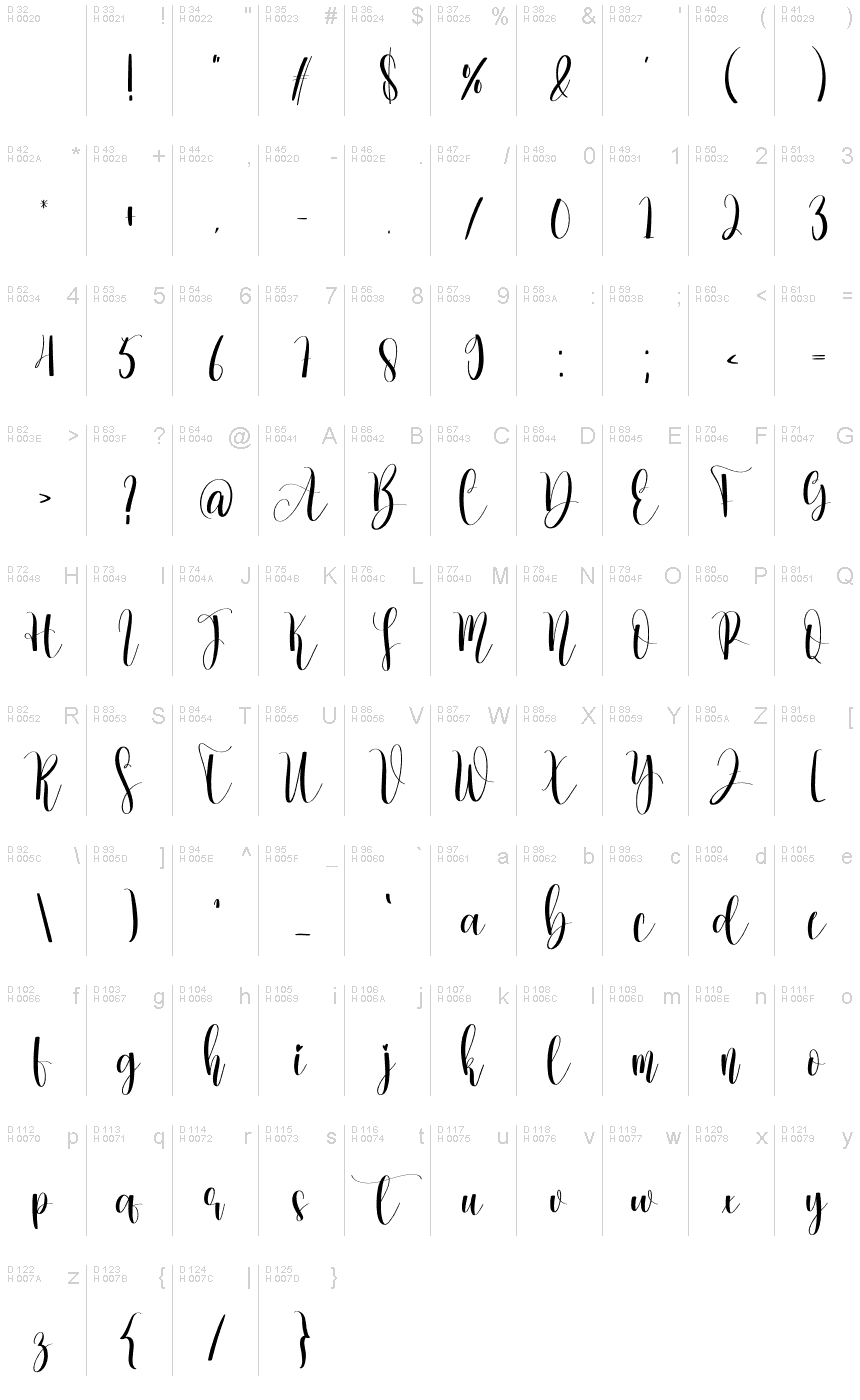
Homework
Homework is a modern, creative handwritten font designed by scratchones. With its light weight and unique style, it's perfect for making bold statements in projects such as logos, posters and brochures. Add a touch of personality to your designs!
the latest style letters are perfect for wall displays, wedding invitations, social media post logos,
advertisements, product packaging, product designs, labels, photography, watermarks, invitations, stationery,
and any project that requires taste handwriting.